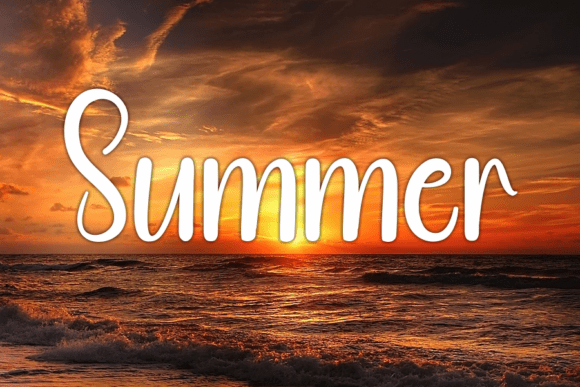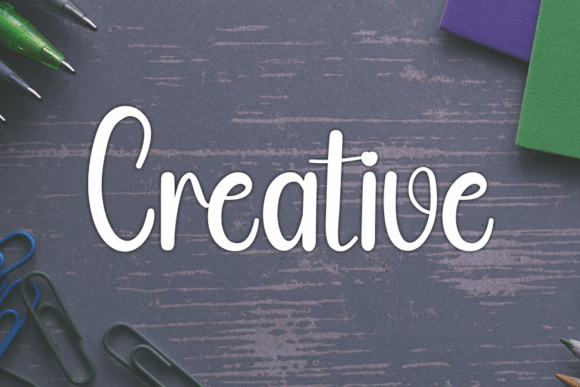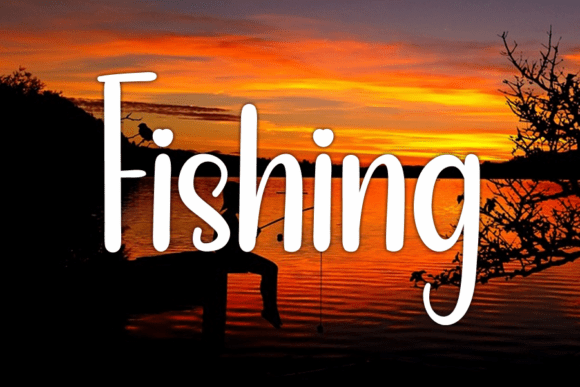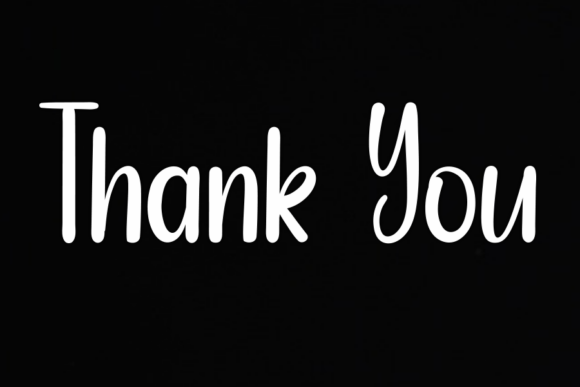
Blooming Font: Adding a Touch of Natural Charm to Your Designs
Are you looking for a font that can infuse your designs with a sense of natural charm and playfulness? Look no further than Blooming, a simple yet elegant handwritten font that captures the joy of a sunny afternoon. With its tall, slender letterforms and soft, rounded terminals, Blooming offers a tidy yet playful aesthetic that’s perfect for a variety of design projects.
The Characteristics of Blooming Font
Blooming font is characterized by its monoline weight, which ensures excellent legibility across various sizes. This makes it an ideal choice for designers who want to create projects that are both functional and charming. The font’s tall, slender letterforms give it a sense of elegance, while its soft, rounded terminals add a touch of playfulness. The overall effect is a font that feels approachable, heartfelt, and organic.
Ideal for Creative Businesses
Blooming font is particularly well-suited for businesses that want to convey a sense of kindness and approachability. Florists, handmade gift shops, children’s boutiques, and bakeries will love the warm, inviting feel that Blooming brings to their branding and marketing materials. Whether you’re creating signage, packaging, or social media graphics, Blooming font is the perfect choice for projects that need to feel friendly and welcoming.
Perfect for Handwritten Notes and Messages
One of the best things about Blooming font is its ability to bring a sense of warmth and personality to handwritten notes and messages. Whether you’re writing a quick thank-you note or creating a custom invitation, Blooming font makes it easy to add a personal touch to your writing. The font’s hand-penned feel makes it perfect for projects that require a sense of authenticity and sincerity.
Why Choose Blooming Font?
So why choose Blooming font for your design projects? Here are just a few reasons why this font is a great choice:
- Natural charm: Blooming font has a natural, organic feel that’s perfect for designers who want to create projects that feel earthy and authentic.
- Excellent legibility: The font’s monoline weight ensures that it remains legible even at small sizes, making it perfect for a variety of design applications.
- Playful aesthetic: Blooming font has a playful, whimsical feel that’s perfect for designers who want to add a touch of personality to their projects.
- Versatility: This font is suitable for a wide range of design projects, from branding and marketing materials to packaging and signage.
Tips for Using Blooming Font
Here are a few tips for getting the most out of Blooming font:
- Use it for headlines and body copy: Blooming font is suitable for both headlines and body copy, making it a great choice for designers who want to create cohesive, visually appealing designs.
- Experiment with colors: The warm, inviting feel of Blooming font makes it perfect for use with a variety of colors. Experiment with different color combinations to find the one that works best for your project.
- Pair it with other fonts: Blooming font pairs well with a variety of other fonts, including serif and sans-serif fonts. Experiment with different pairings to find the one that works best for your project.
Blooming font is a beautiful, elegant handwritten font that’s perfect for designers who want to add a touch of natural charm to their projects. With its tall, slender letterforms and soft, rounded terminals, Blooming offers a tidy yet playful aesthetic that’s ideal for a variety of design applications. Whether you’re creating branding and marketing materials, packaging, or signage, Blooming font is the perfect choice for projects that need to feel approachable, heartfelt, and organic.